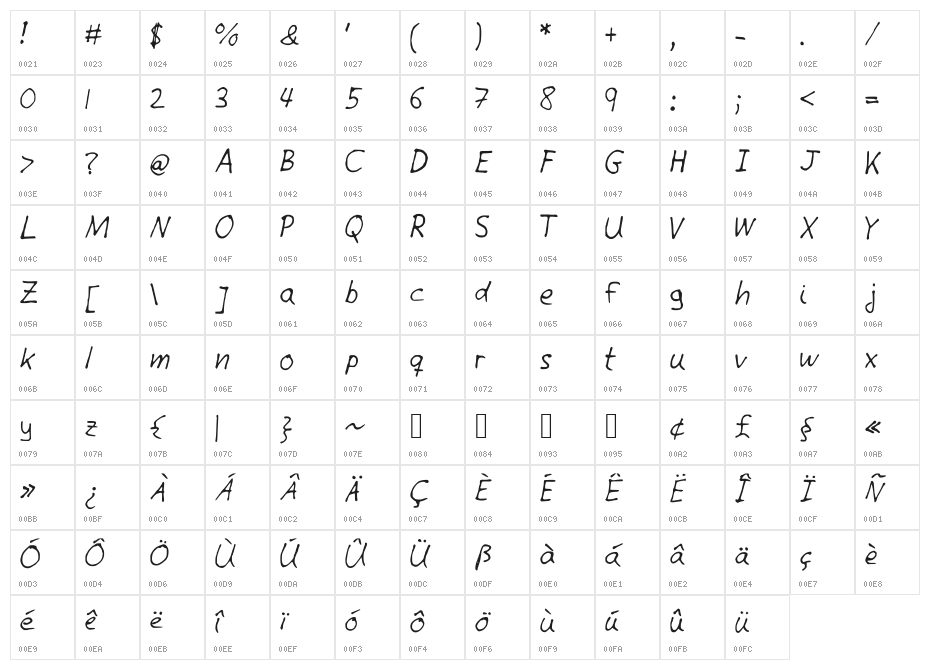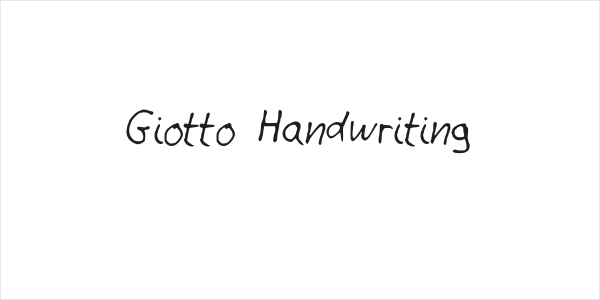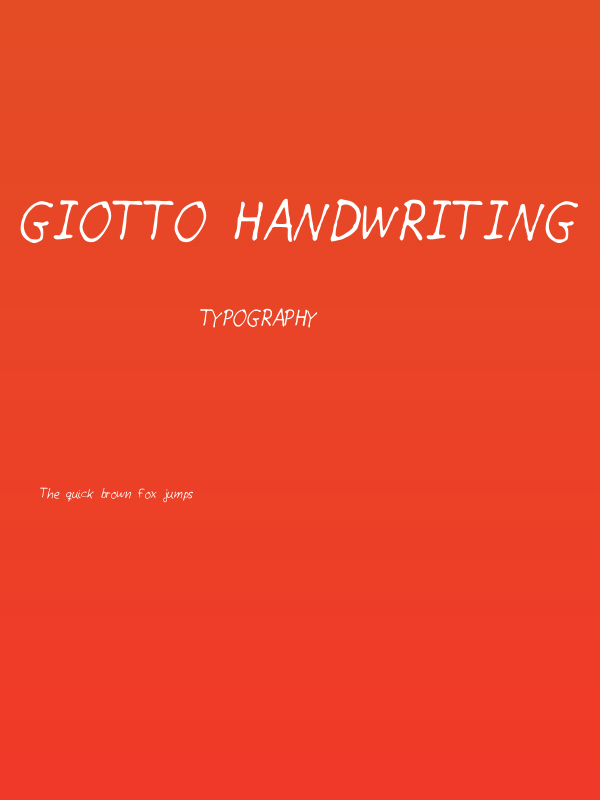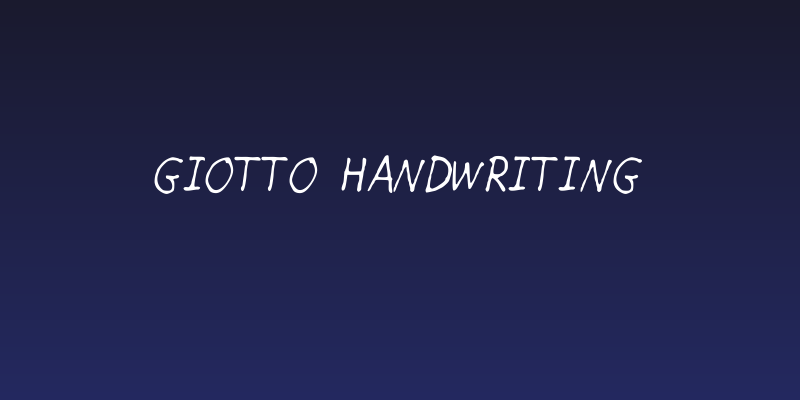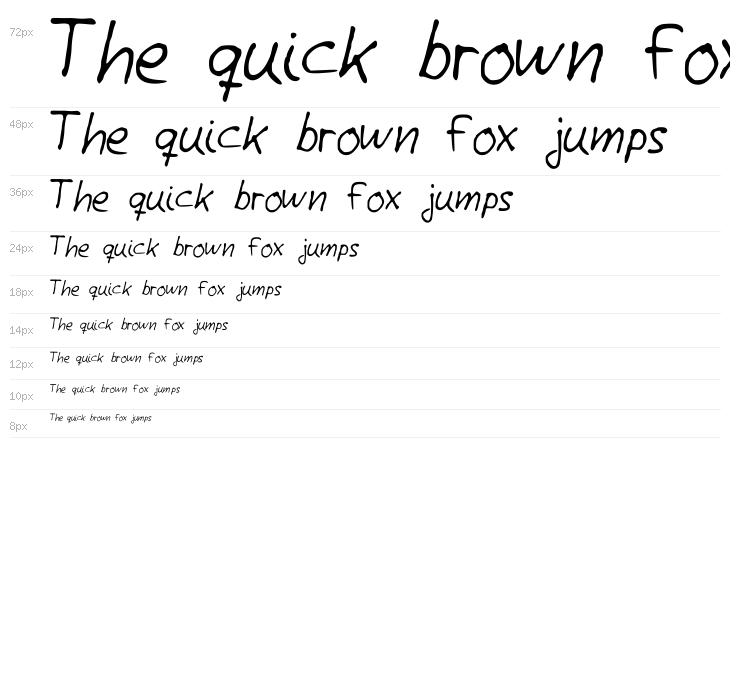
Giotto Handwriting Font
Giotto Handwriting Description
This font exudes a casual and personal touch, reminiscent of natural handwriting. Each character is crafted with a slight slant, giving it an informal and approachable feel. The strokes are smooth and consistent, with a medium thickness that ensures readability while maintaining a handwritten charm. The uppercase letters are slightly larger and more pronounced, while the lowercase letters maintain a consistent flow. Numbers and special characters are designed to blend seamlessly with the alphabet, ensuring a cohesive look across all text. This font is perfect for projects that require a personal or creative touch, such as invitations, greeting cards, or artistic projects.
Overall StyleCasual, Personal
Use CaseHeadlines, Artistic projects, Personal notes
Proposed ProjectsIdeal for invitations, greeting cards, personal notes, and creative projects.